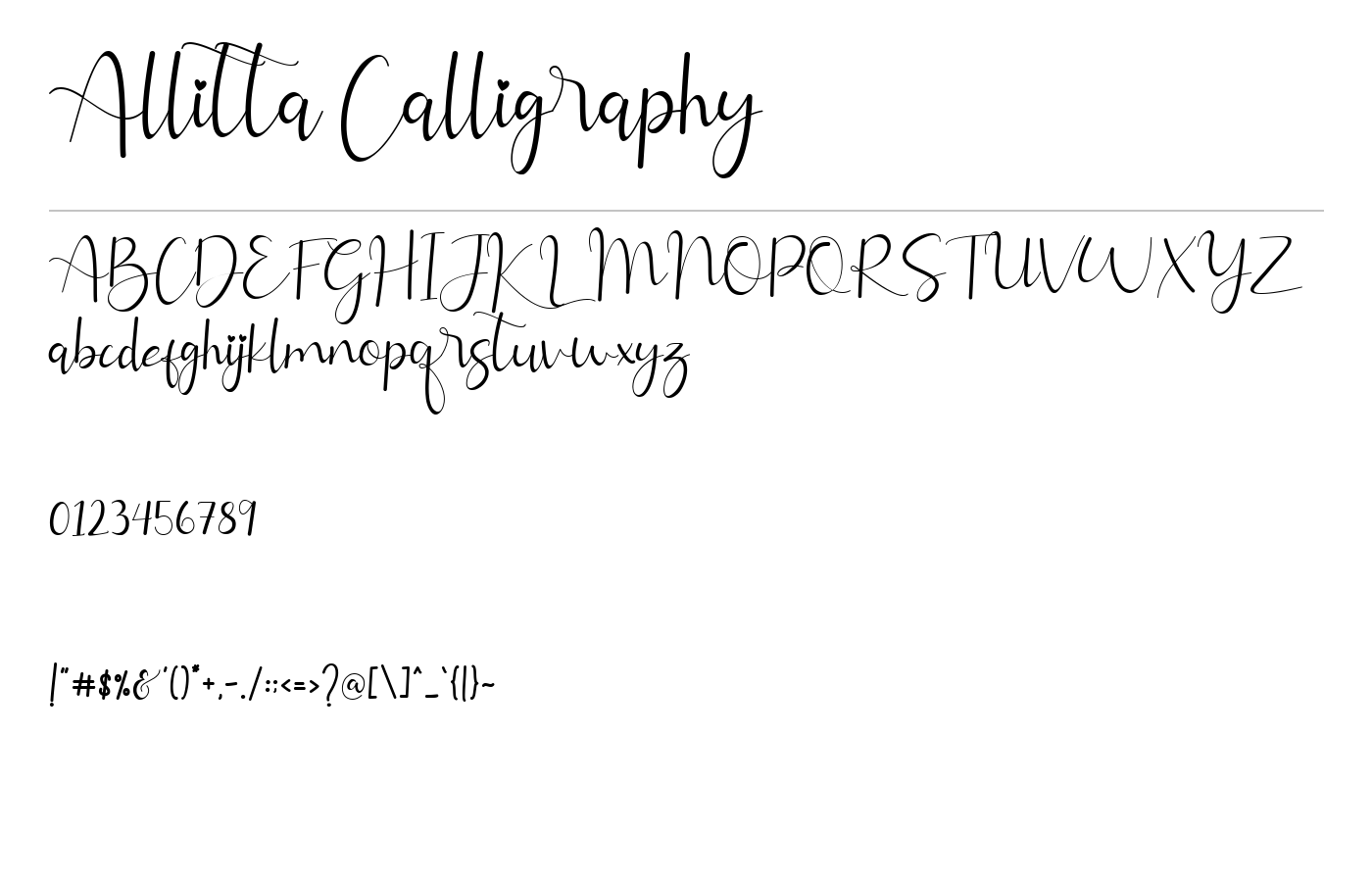
Allitta Calligraphy is a delicate, elegant script font with thin, flowing strokes that evoke a personal, handwritten feel. Its slightly whimsical letterforms, with unique details like heart-shaped dots and varied stroke heights, make it perfect for romantic designs, invitations, and branding that aims for a refined yet approachable look. This font works beautifully in logos, greeting cards, and stylish editorial headings where a touch of graceful charm is desired.
Allitta Calligraphy Font
About Allitta Calligraphy Font
| Font family | Allitta Calligraphy Font |
| Designer | AEN Creative Studio 2020 |